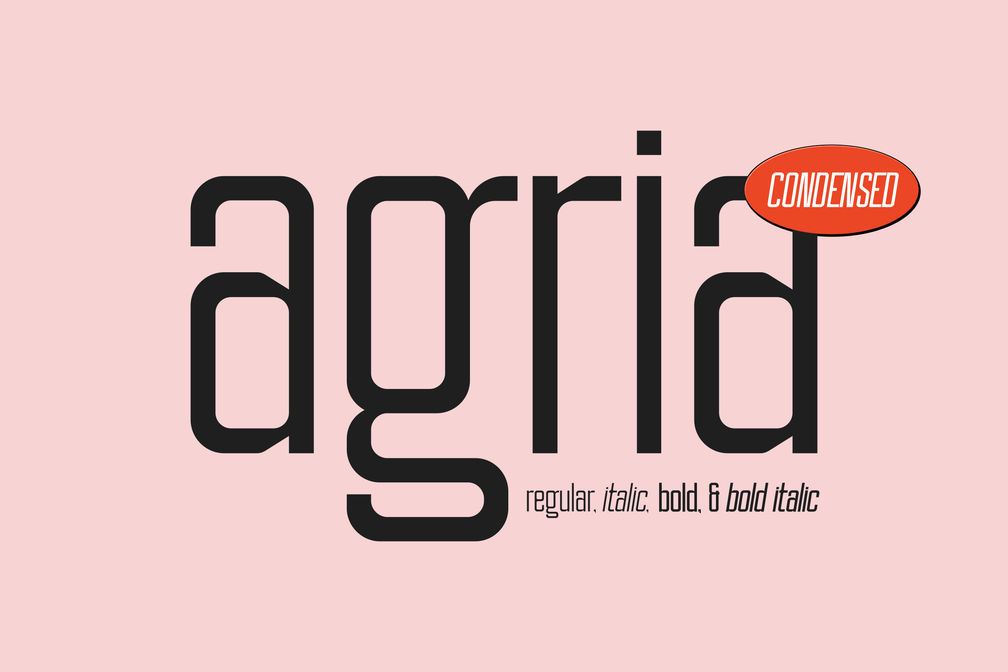
Agria Condensed Font
Agira is a condensed sans serif font designed to be more special so that it brings out a more unique side to your designs. This font consists of Regular, Italic, Bold, and Bold Italic fonts, supports languages, complete with alternates and ligatures. Recommended for headlines, logos and any intended use such as corporate identity, typography, posters, web design and social feeds.